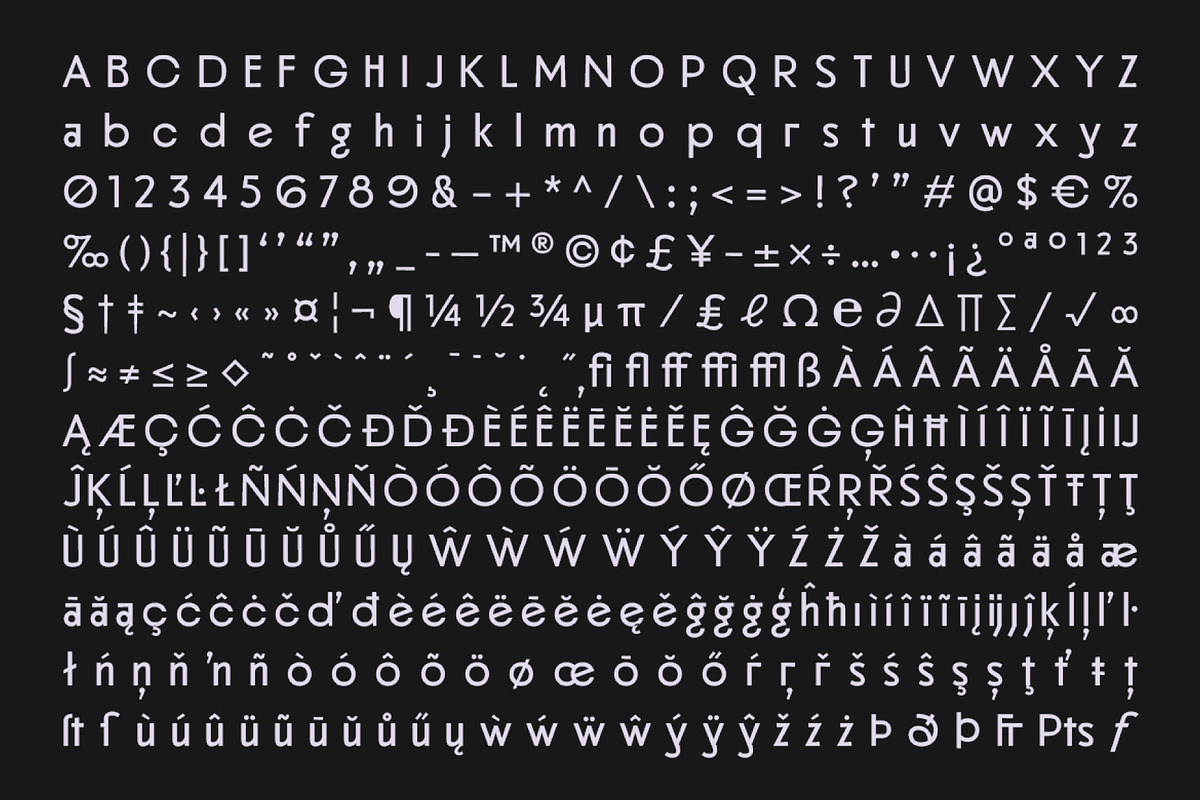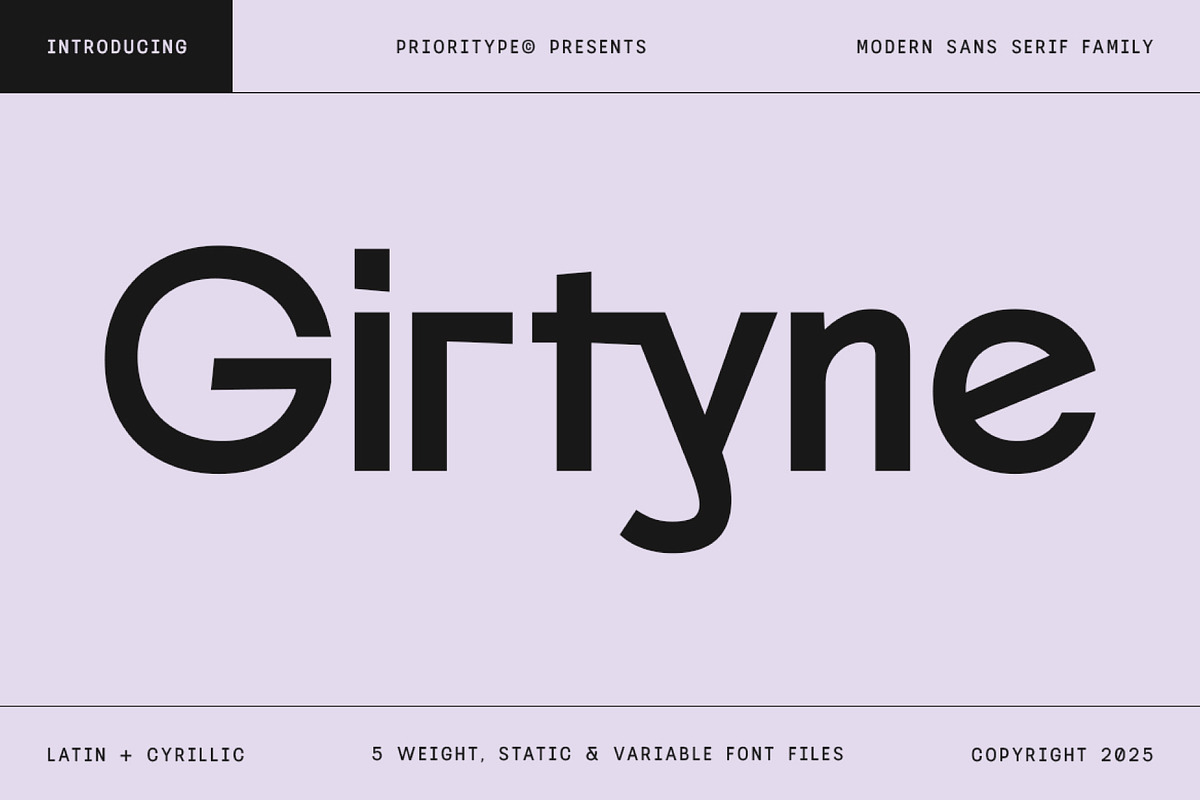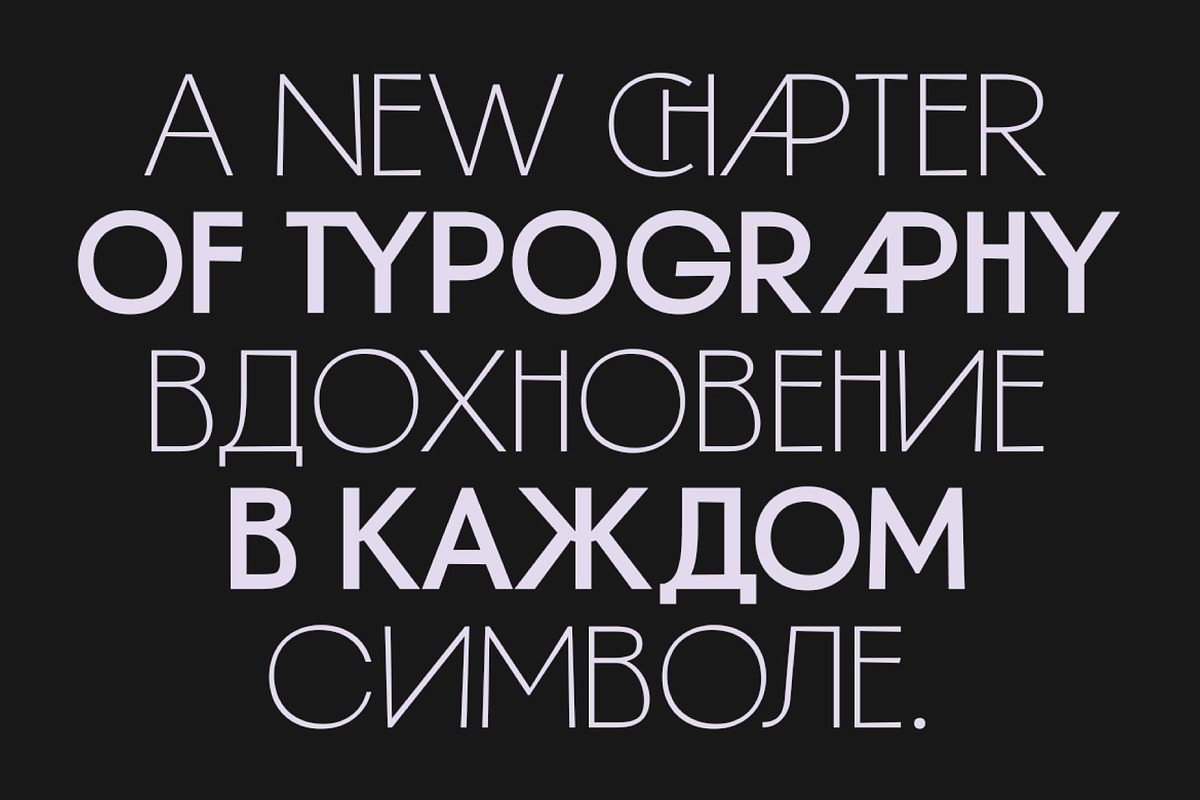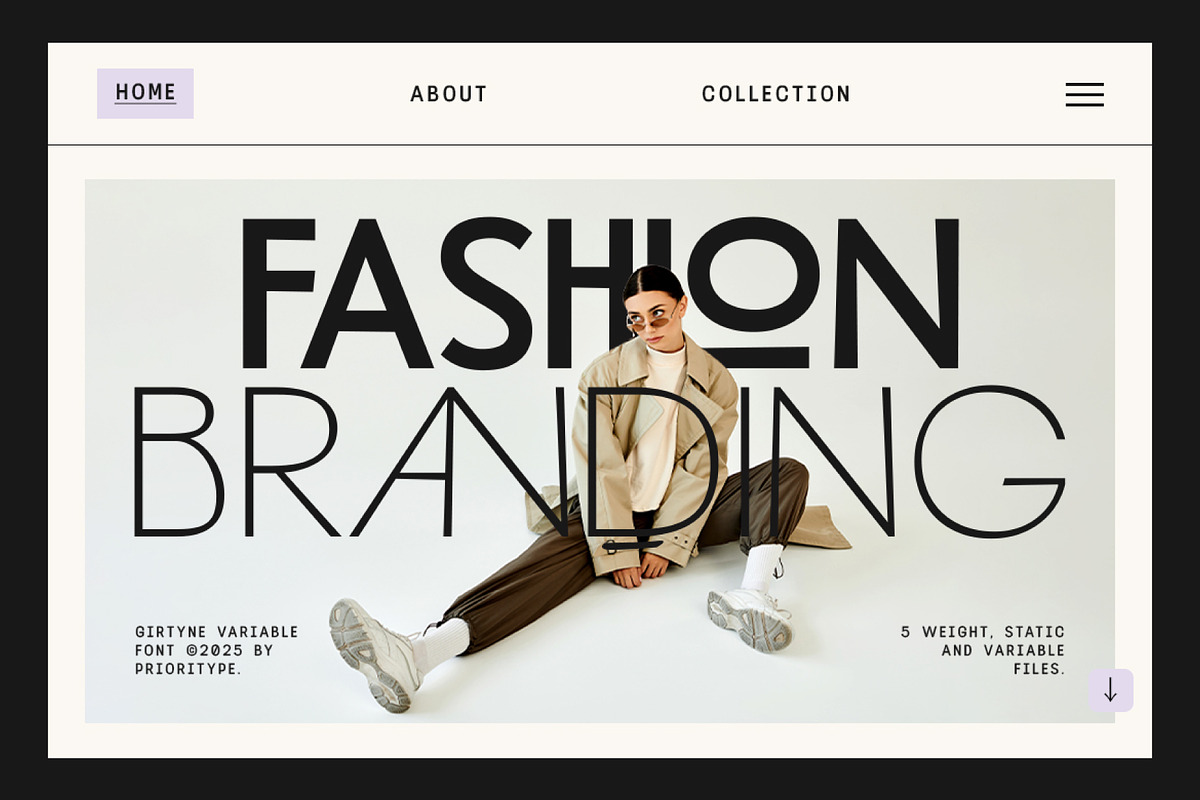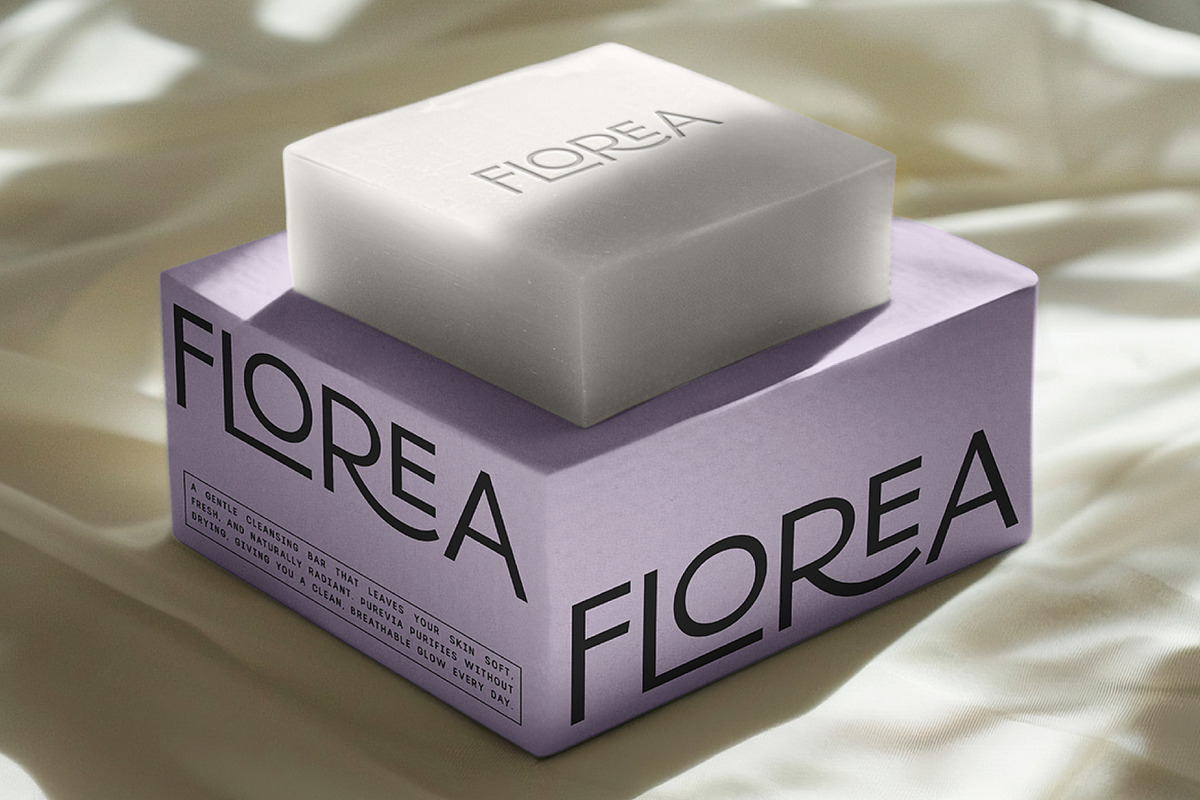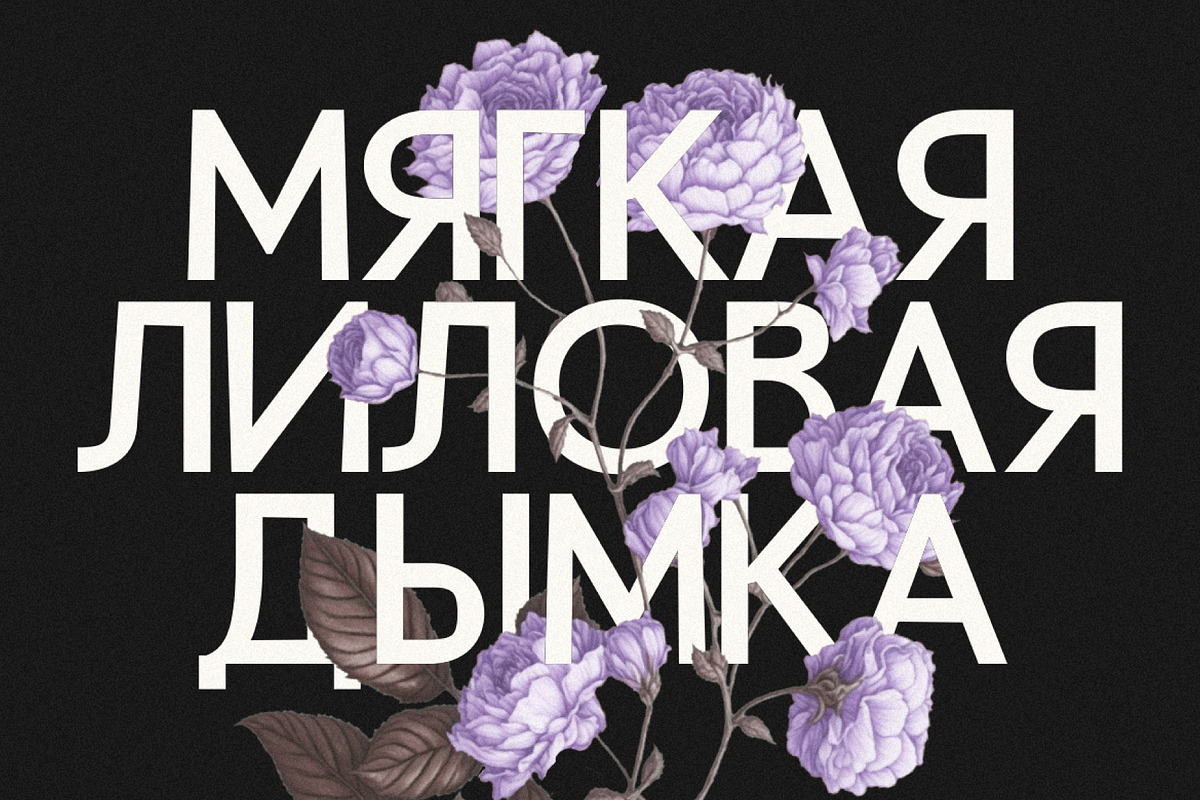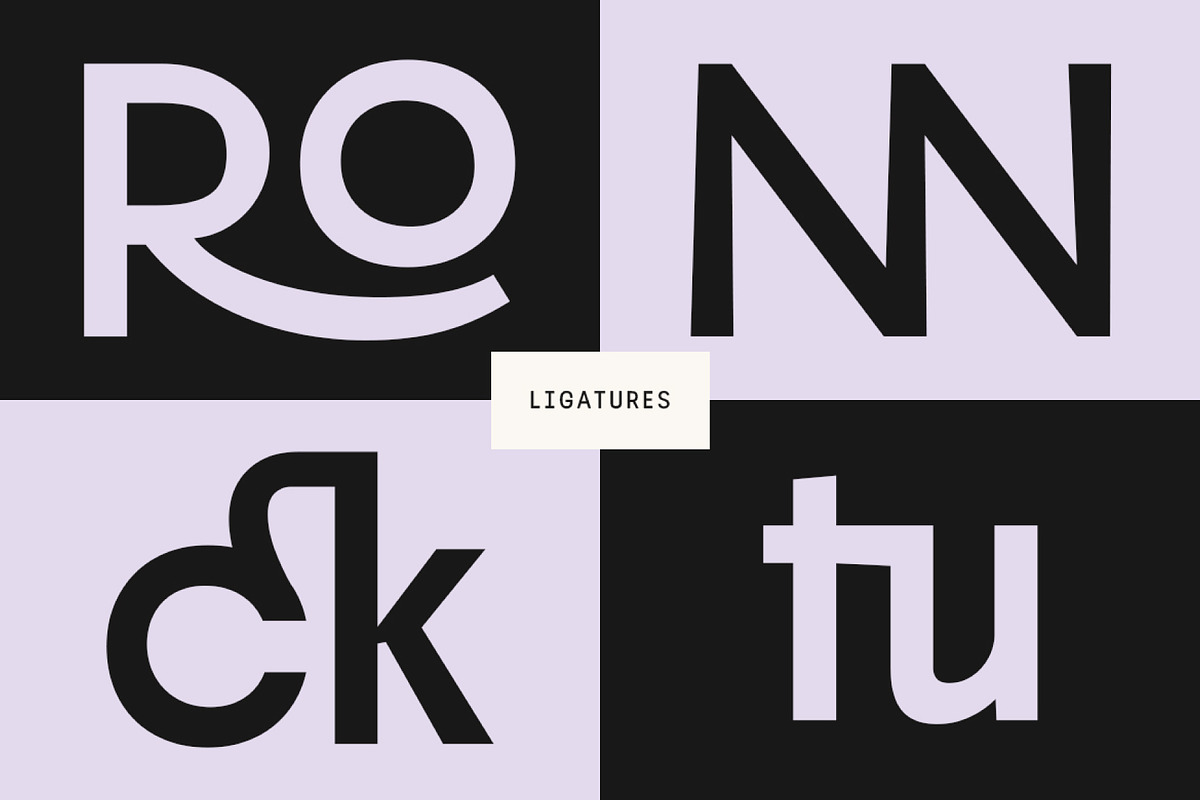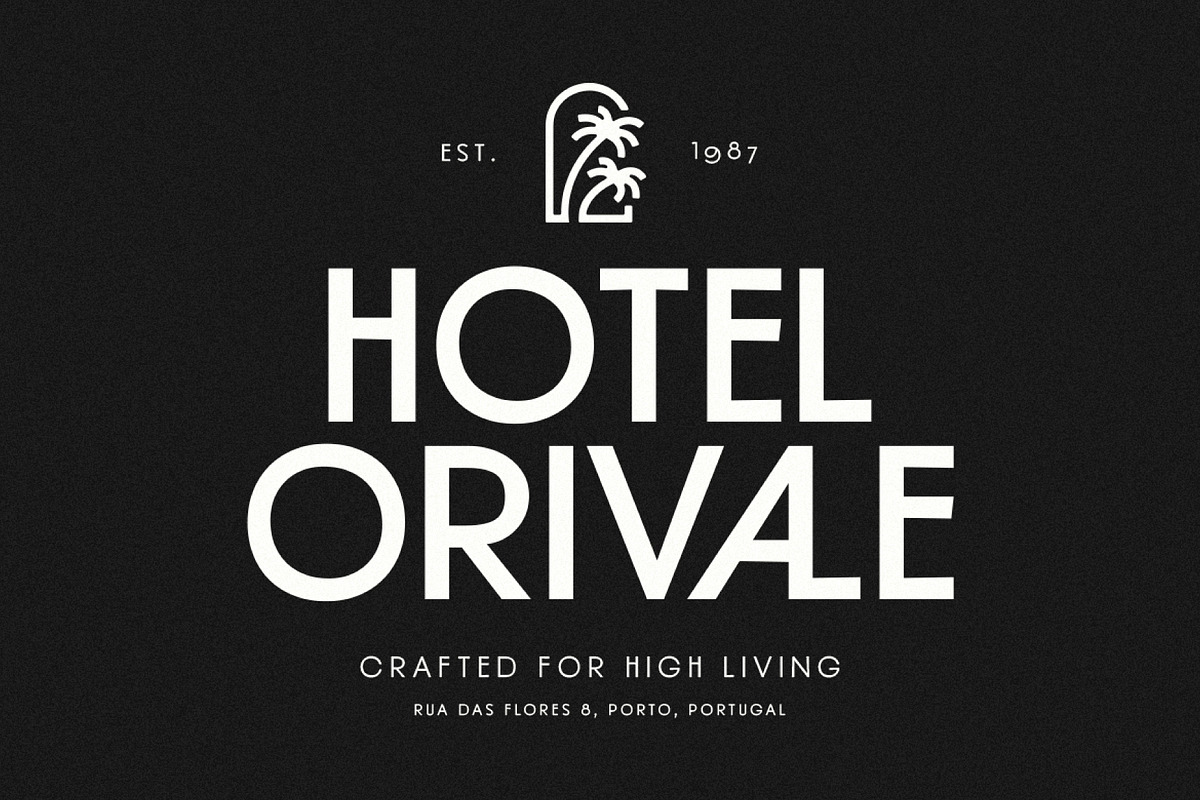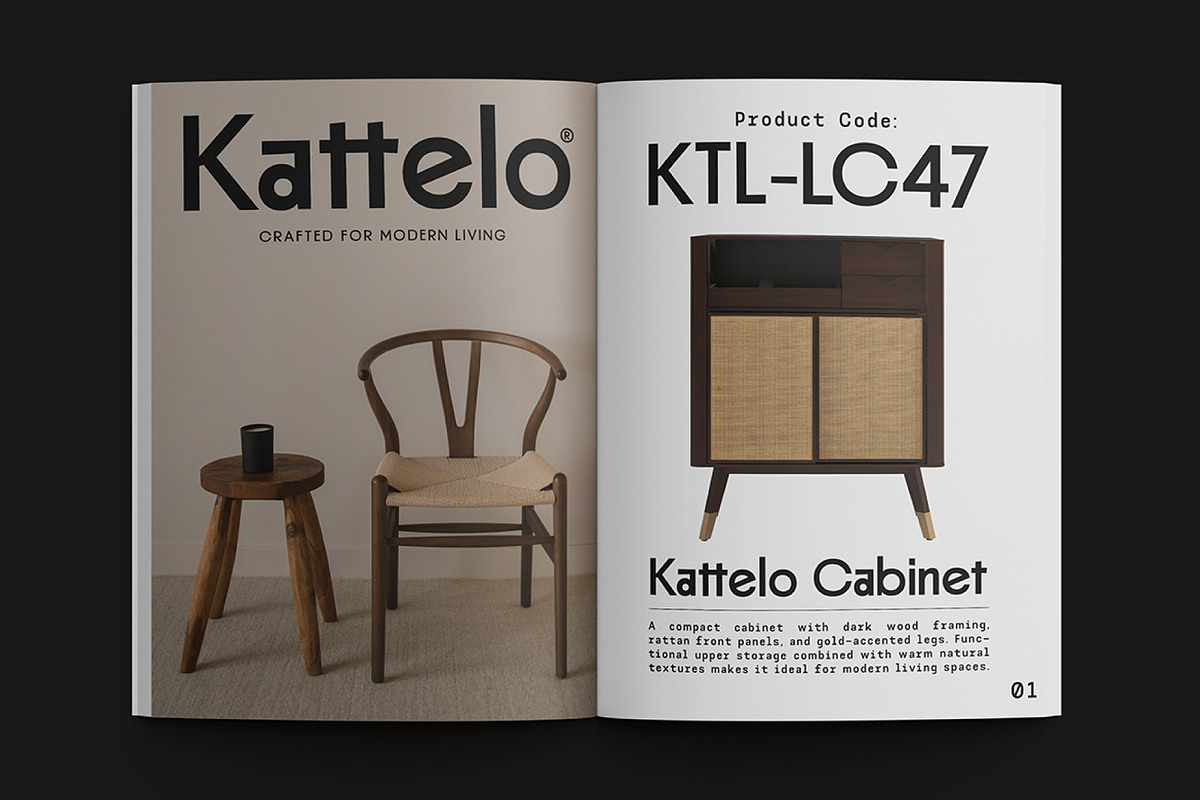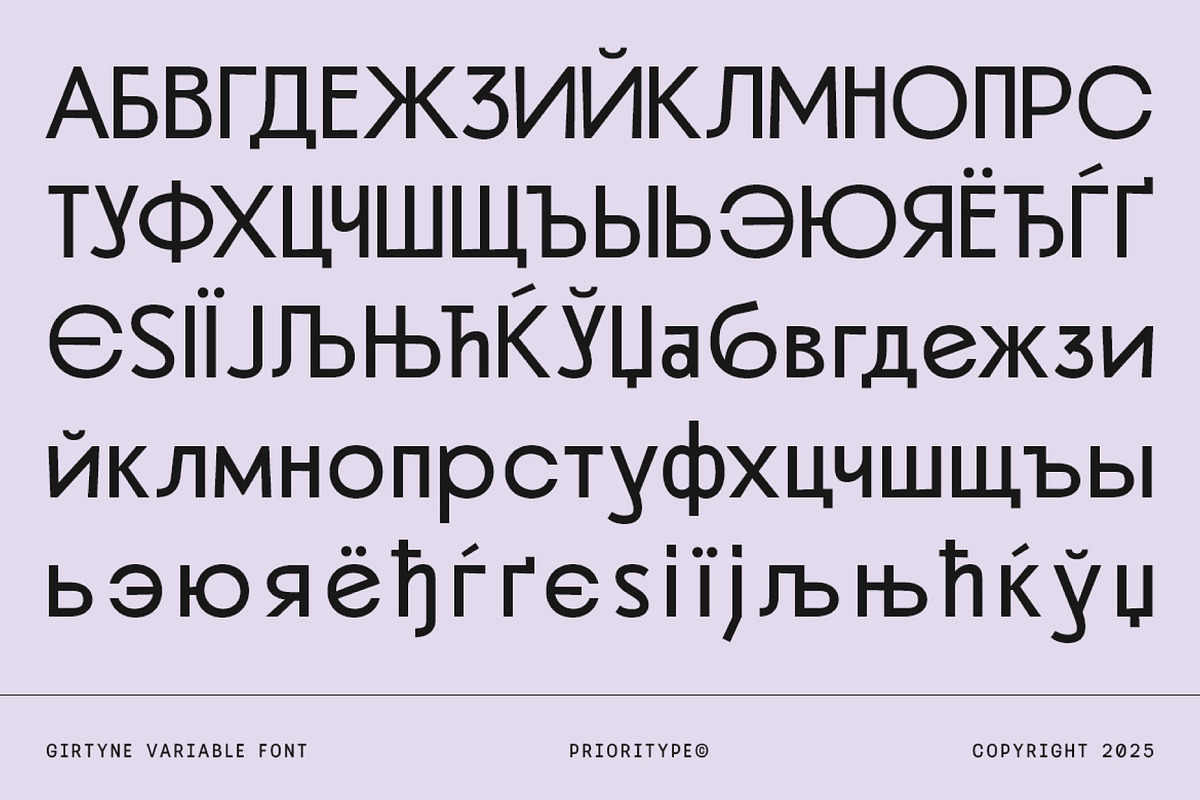
Girtyne - Modern Sans Family
Girtyne is a refined modern classic sans serif designed for clarity, elegance, and versatility. It balances clean geometry with timeless humanist touches, delivering a smooth and confident typographic voice suitable for branding, editorial layouts, UI design, packaging, and display use.
With five carefully crafted weights and a fully adjustable Variable Font, Girtyne gives designers complete control over tone and expression, from delicate extra light styles to semi bold and assertive forms.
Its extended character set includes full Cyrillic support, bringing modern sophistication while maintaining the warmth and familiarity of classic sans serif design. This makes Girtyne a reliable choice for creators who value both style and functionality.